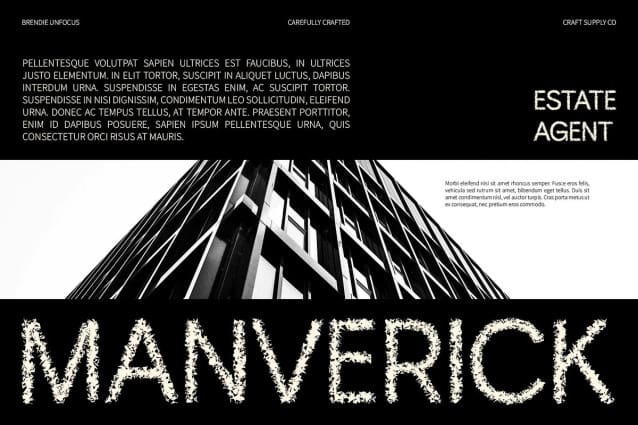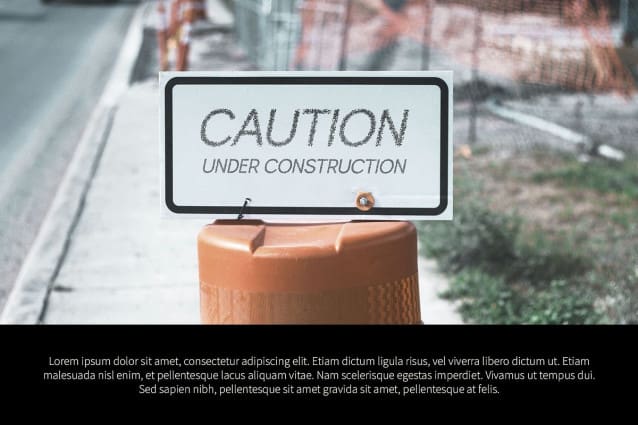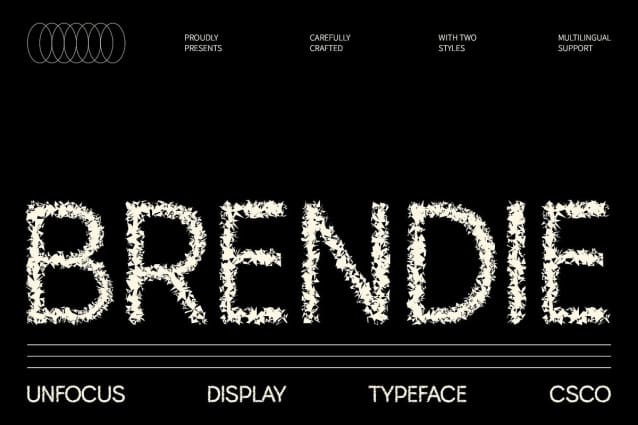
Brendie Unfocus Font
Brendie Unfocus Font is a modern sans-serif font that skillfully combines geometric and grotesque design elements, creating a bold yet clean aesthetic. Its sharp, structured letterforms offer strong readability, while the grotesque influences introduce subtle curves that add personality and character. This design approach makes it highly suitable for a wide variety of design projects, from digital interfaces to print layouts, where a modern and professional appearance is key.
Unfocused Effect for Unique Depth What truly sets Brendie Unfocus apart is its innovative unfocused effect, which introduces a slight, deliberate distortion to the letterforms. This subtle blur adds depth and artistic flair without sacrificing legibility, creating a sense of movement and visual intrigue. The unfocused effect enhances the font’s unique appeal, making it perfect for creative designs that demand attention and inspire curiosity, while still delivering a clean, contemporary look.
Ideal for Experimental Designs Brendie Unfocus is an excellent choice for experimental designs that push the boundaries of traditional typography. Its fusion of geometric clarity and creative distortion makes it a versatile option for posters, album covers, and any visual content that strives to stand out. Whether used in editorial design, digital art, or event marketing, BrendieUnfocus provides an edgy, unconventional aesthetic that grabs attention and sparks interest.